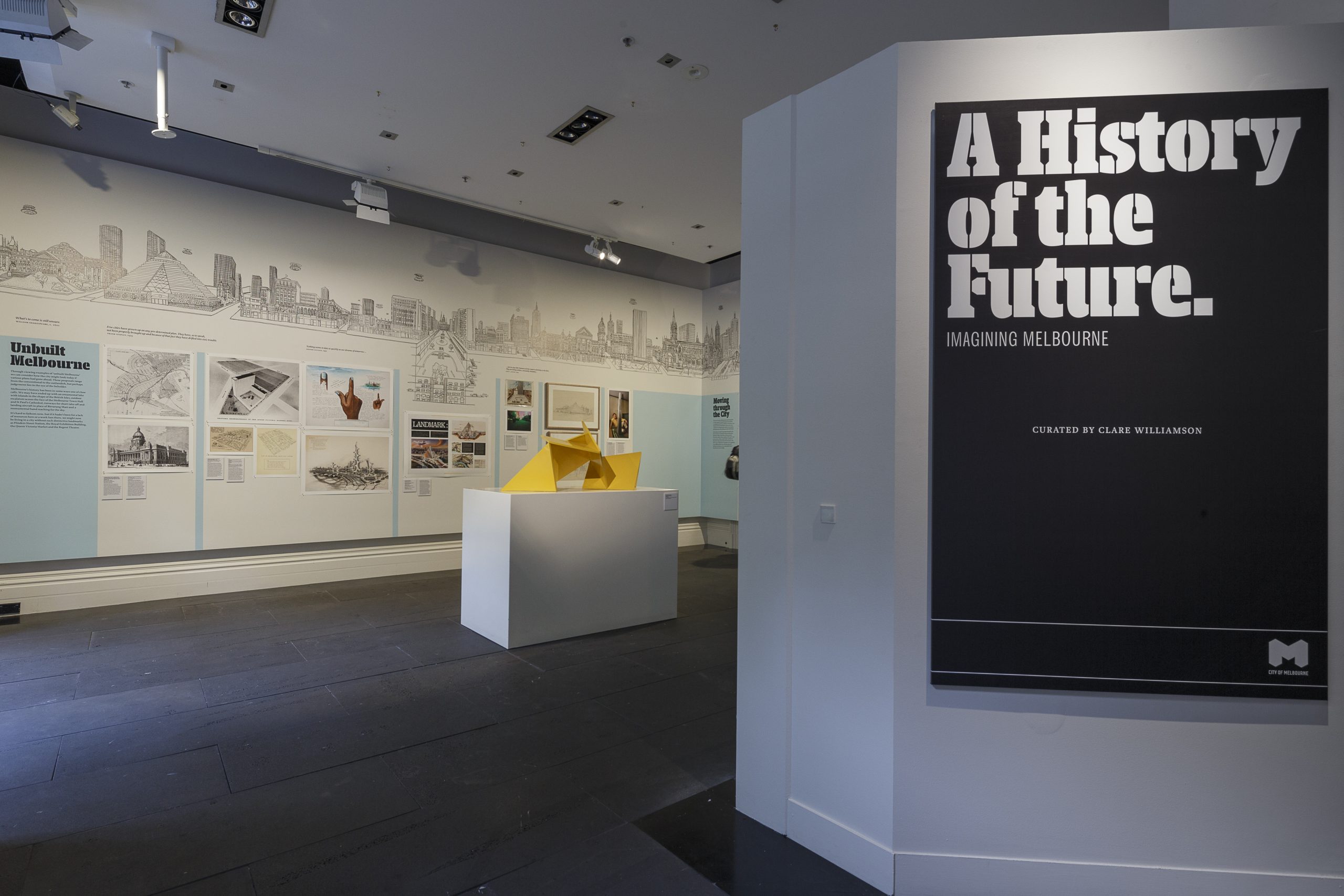
Alternate Histories
What could Melbourne have looked like? What ideas never went ahead? History of the Future explores this speculative world. Whilst some are fanciful, even ridiculous, most we are glad were never built. The mirrored typographic identity reinforces the reflective, utopian nature of this exhibition.
The History of the Future Exhibition at Melbourne’s City Gallery (2015)